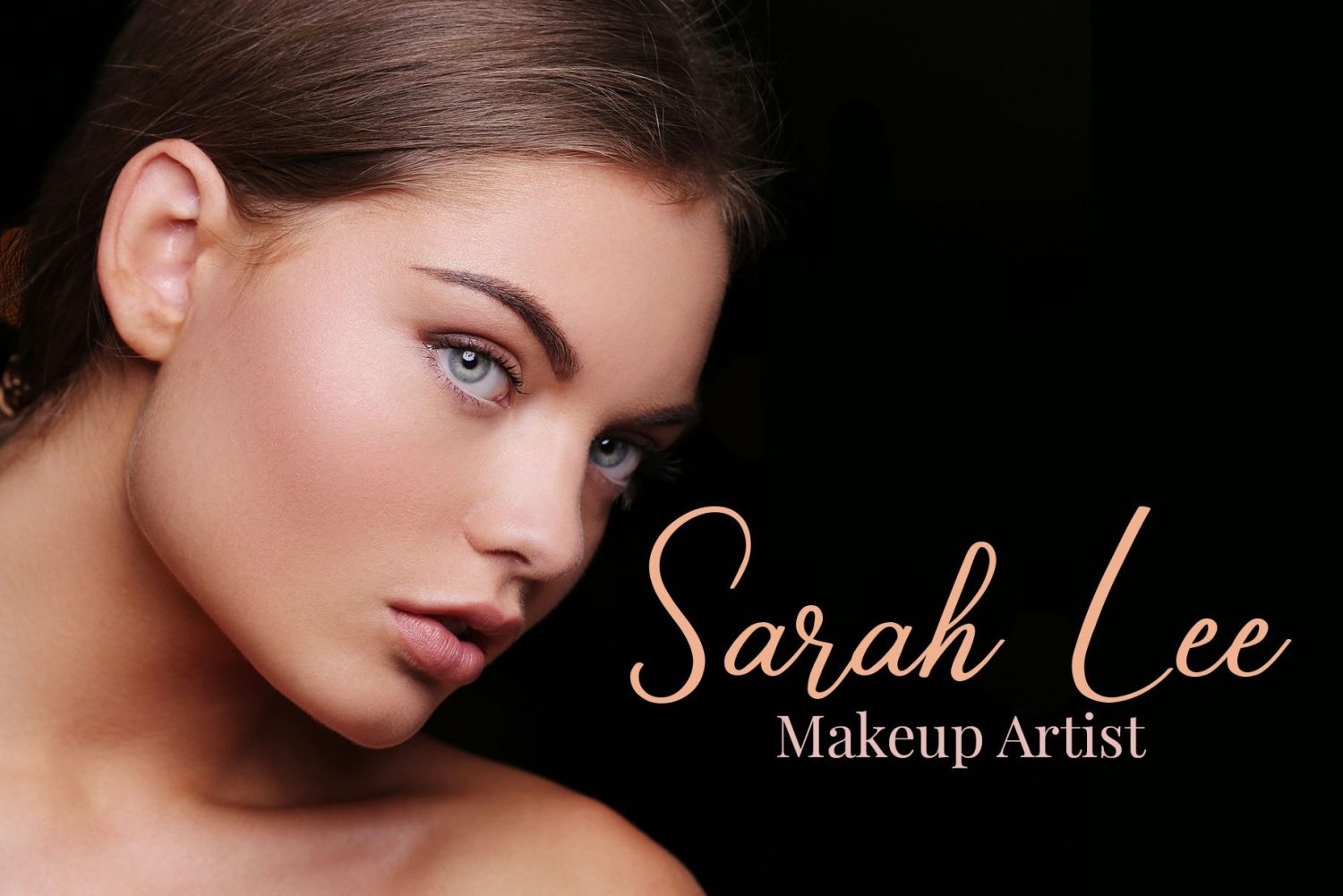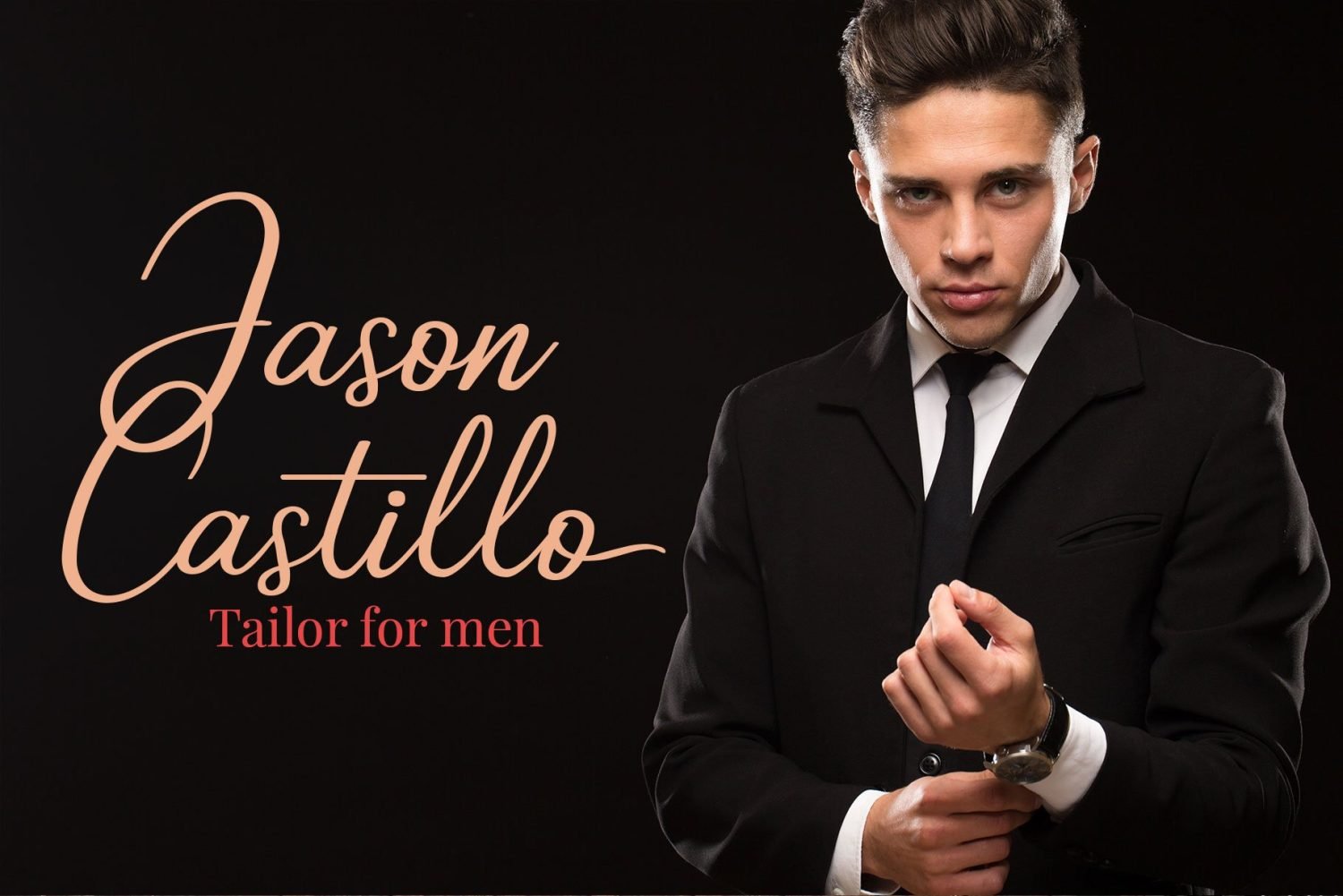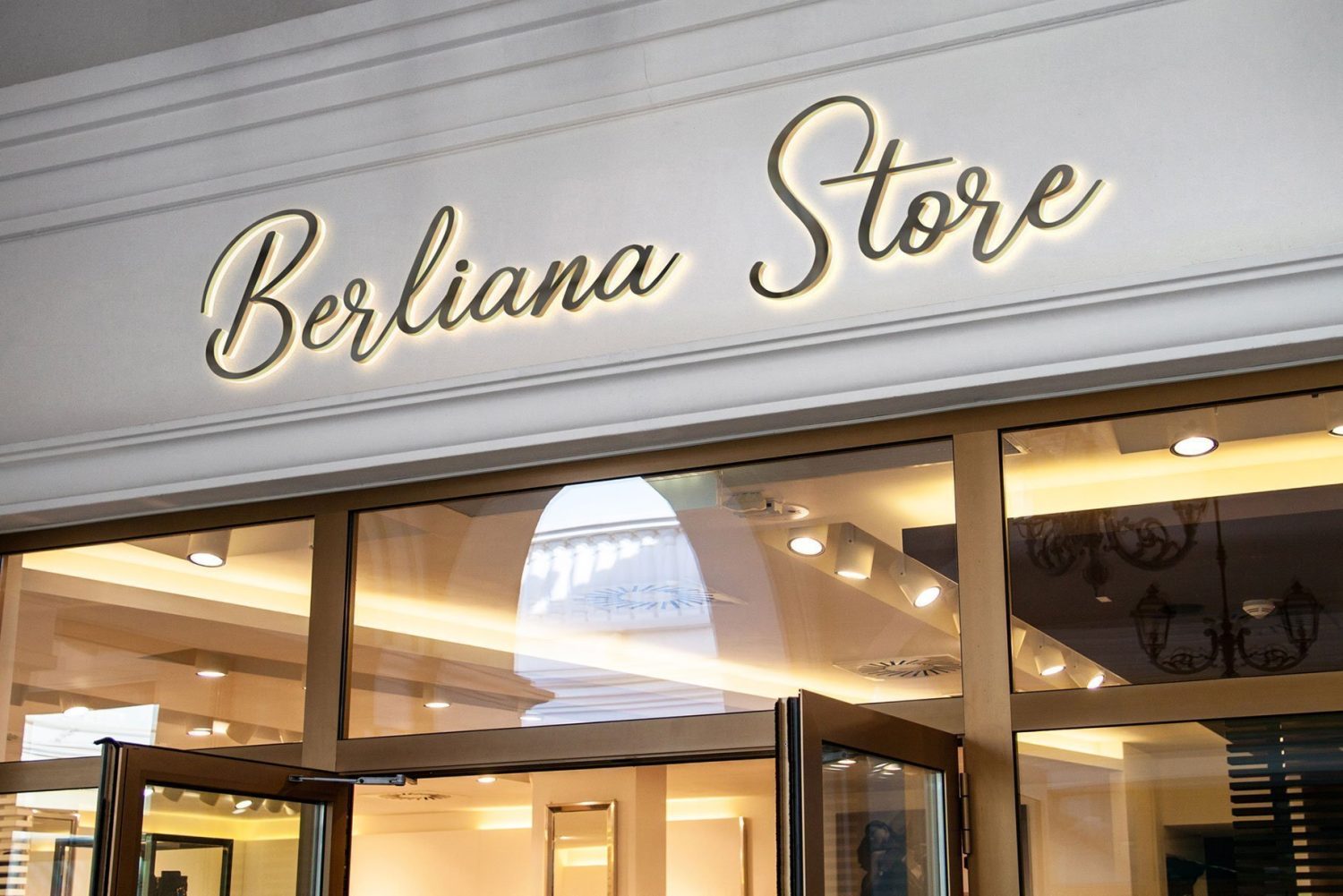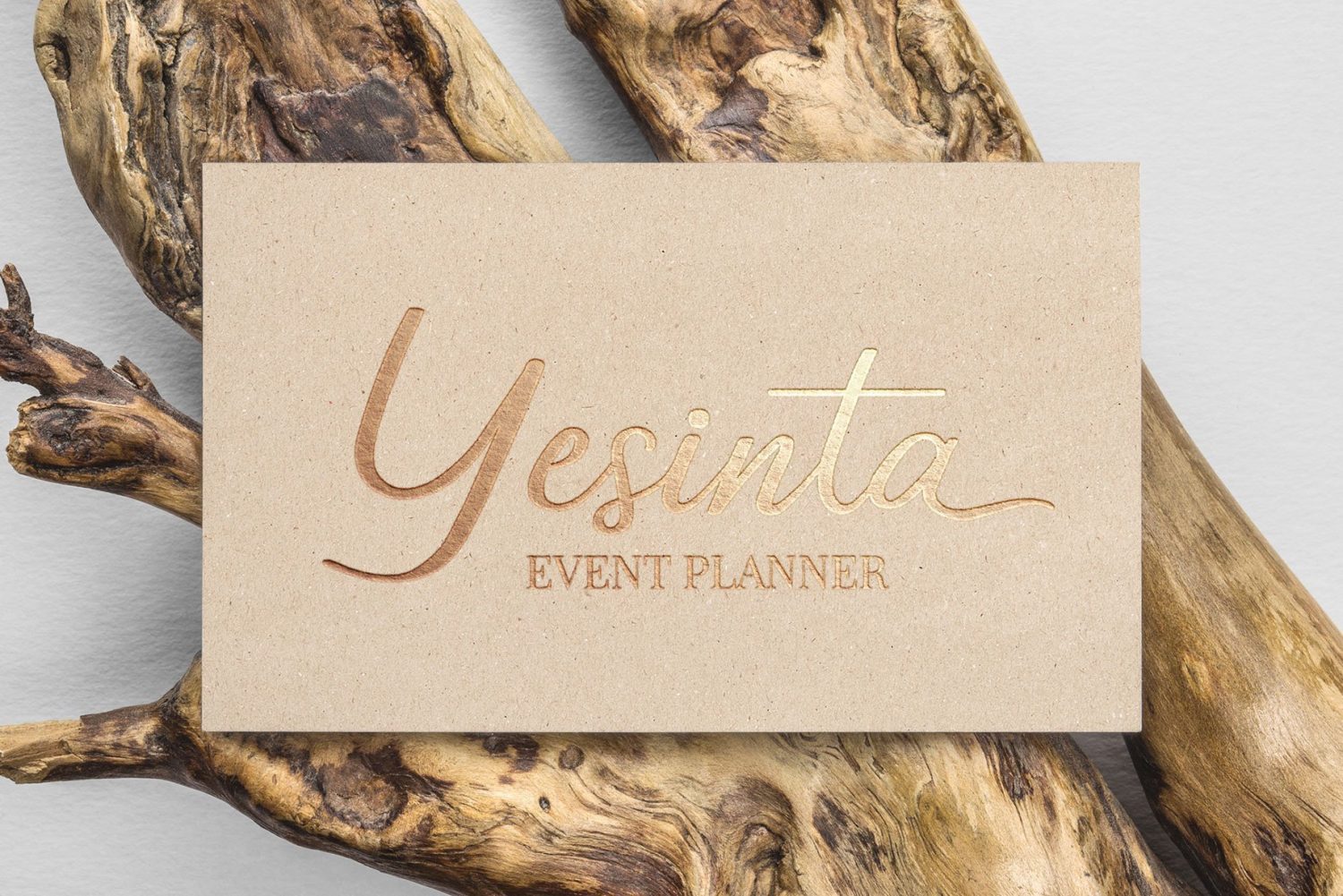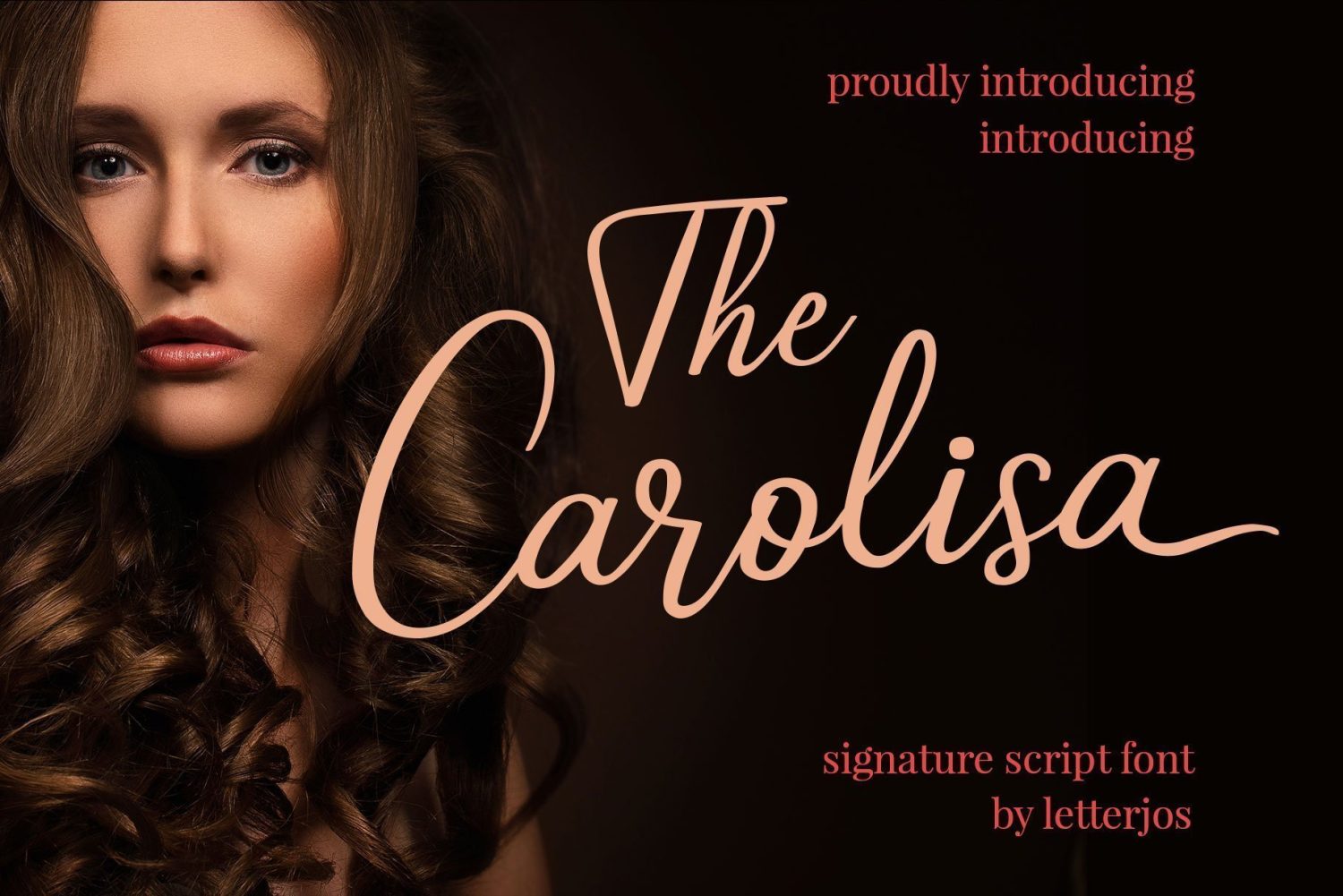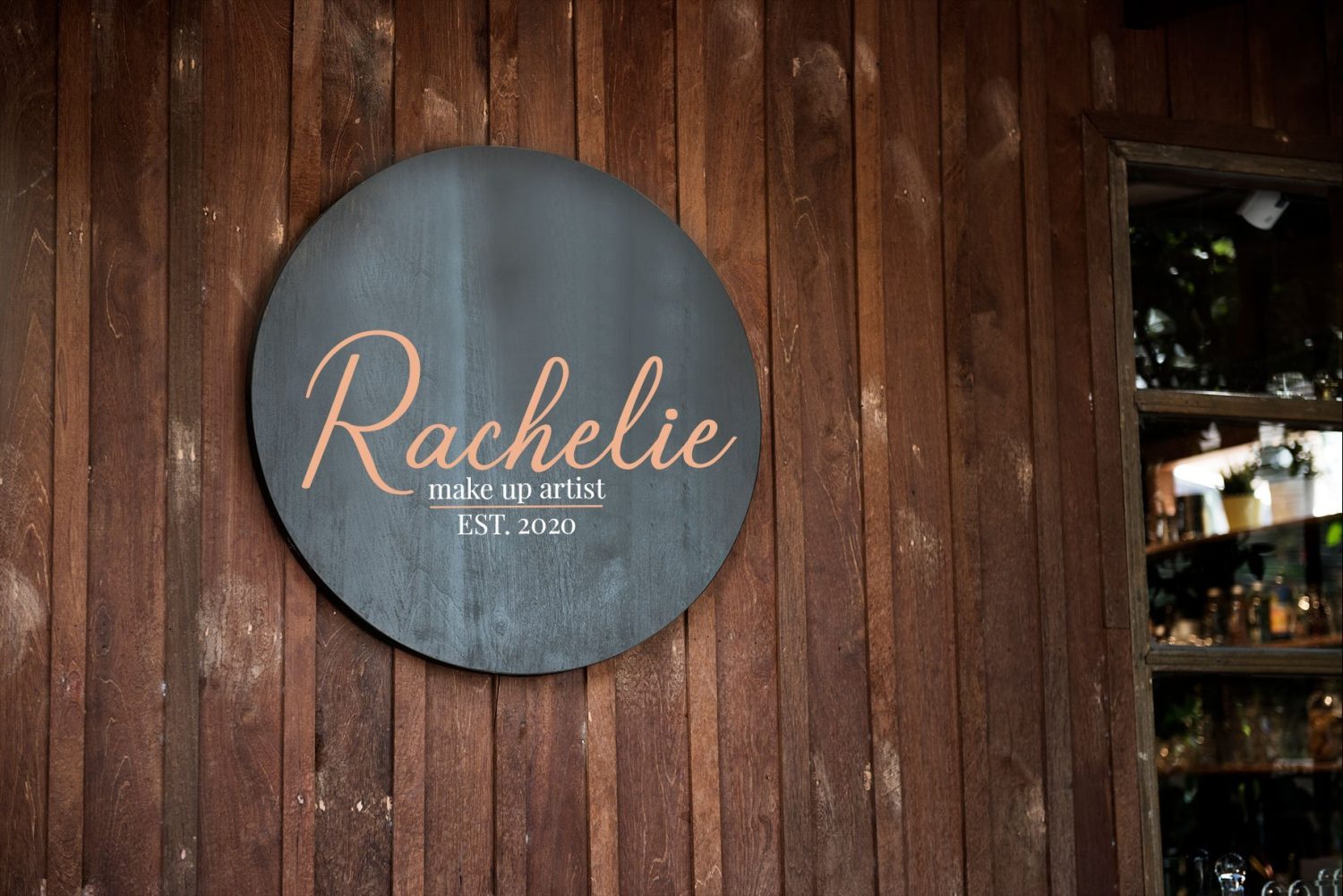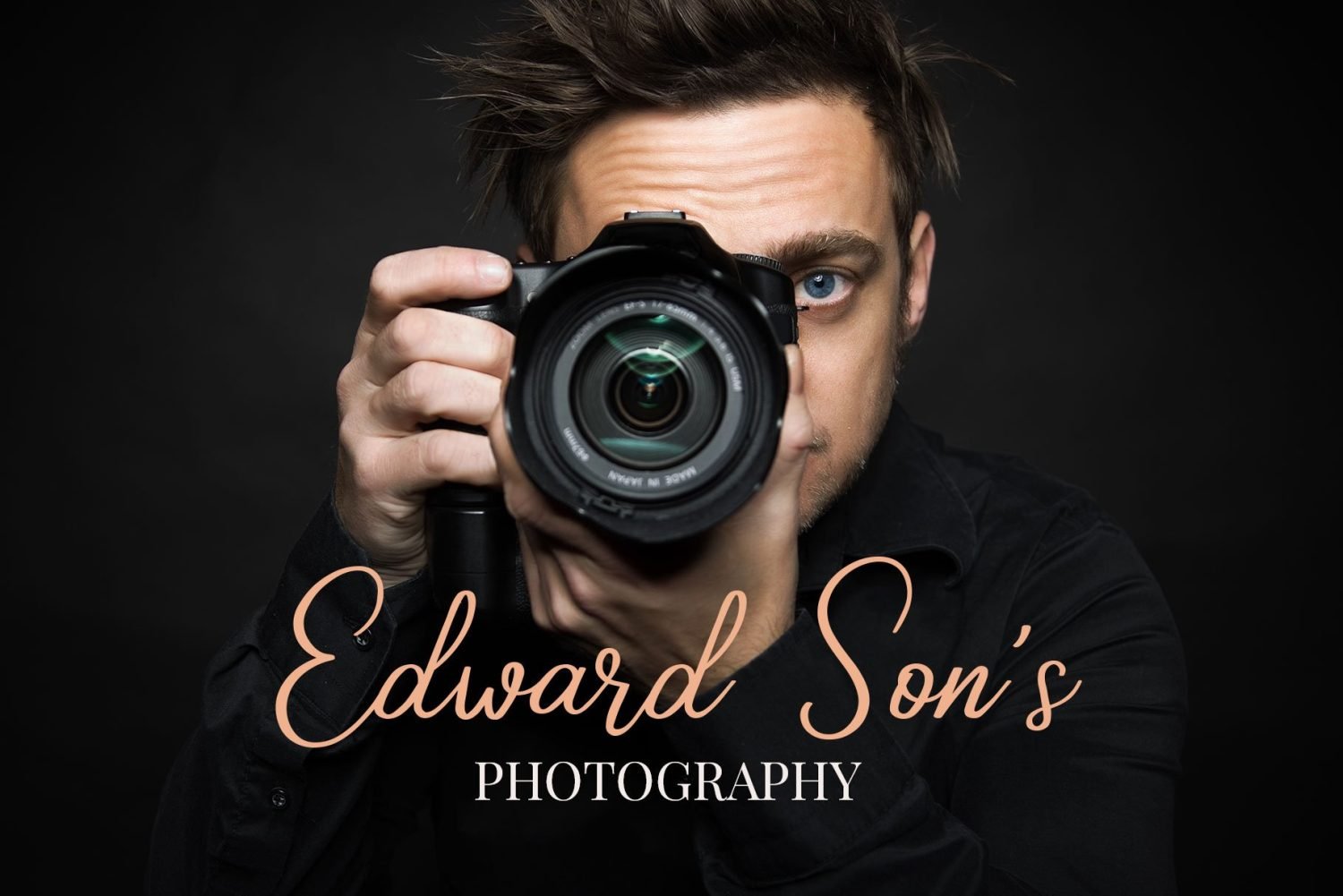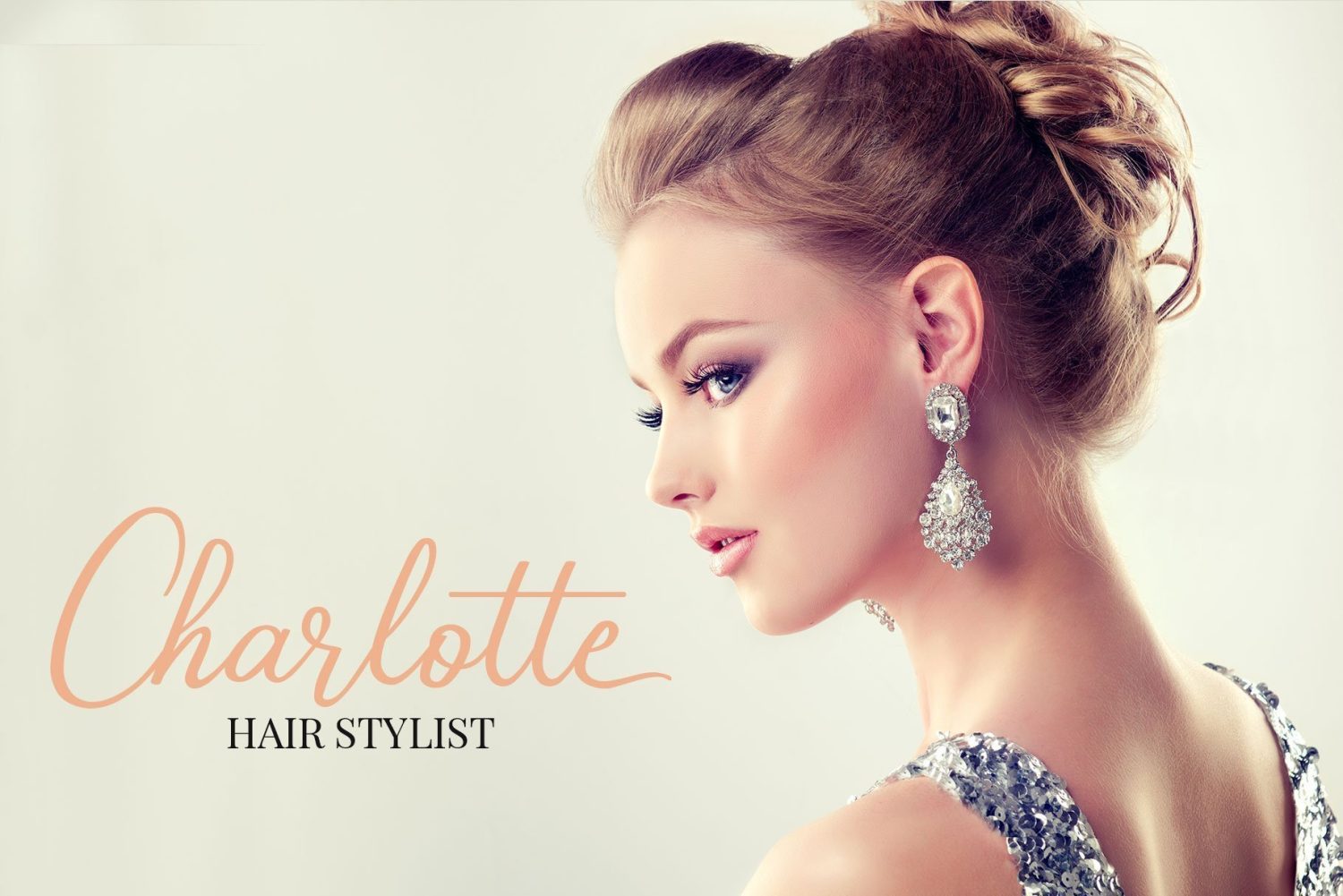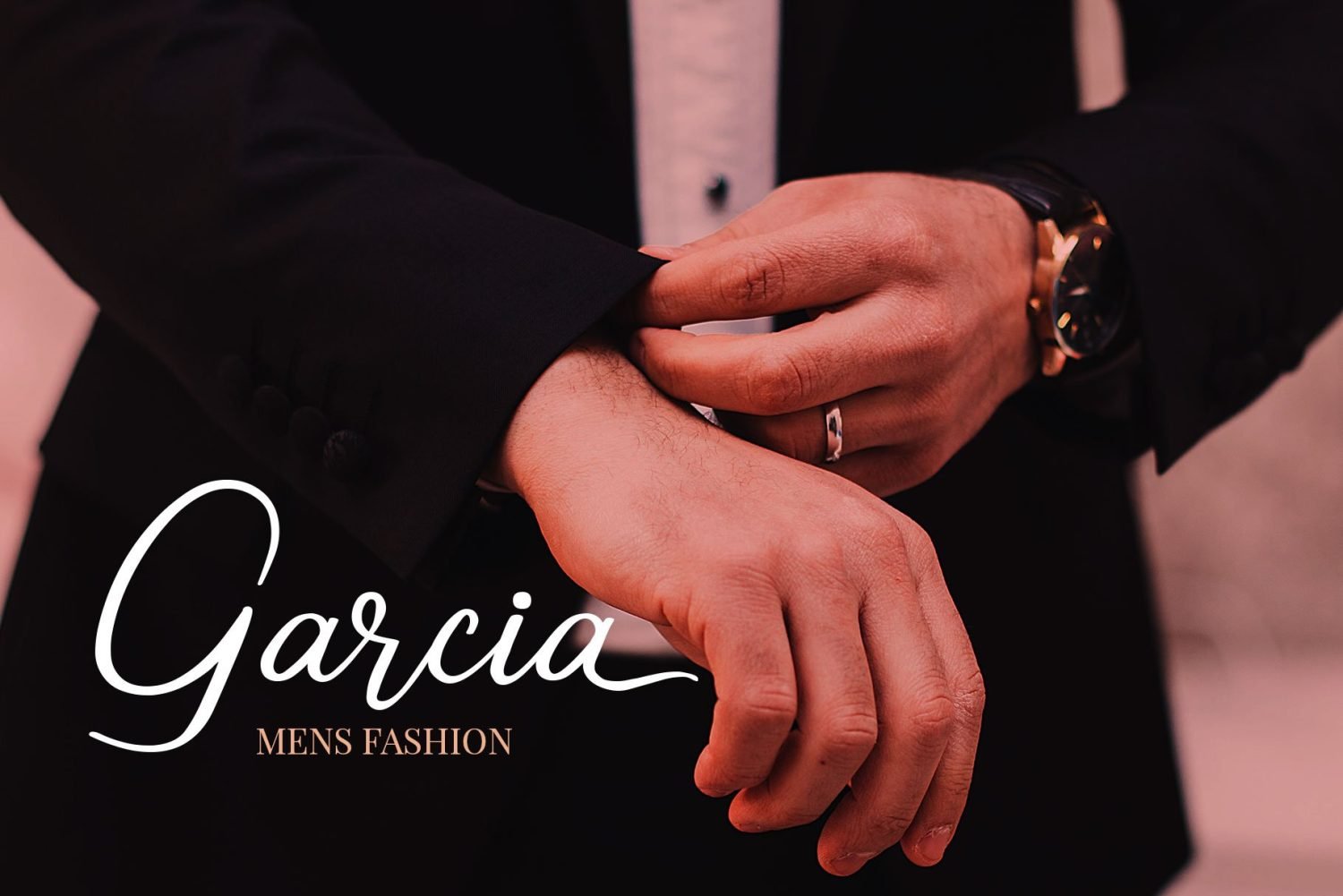
Carolisa elegant signature font
Carolisa Signature Style
Beautiful Signature script font for any project designs. This Carolisa Script font is perfect for any project with signature script style.